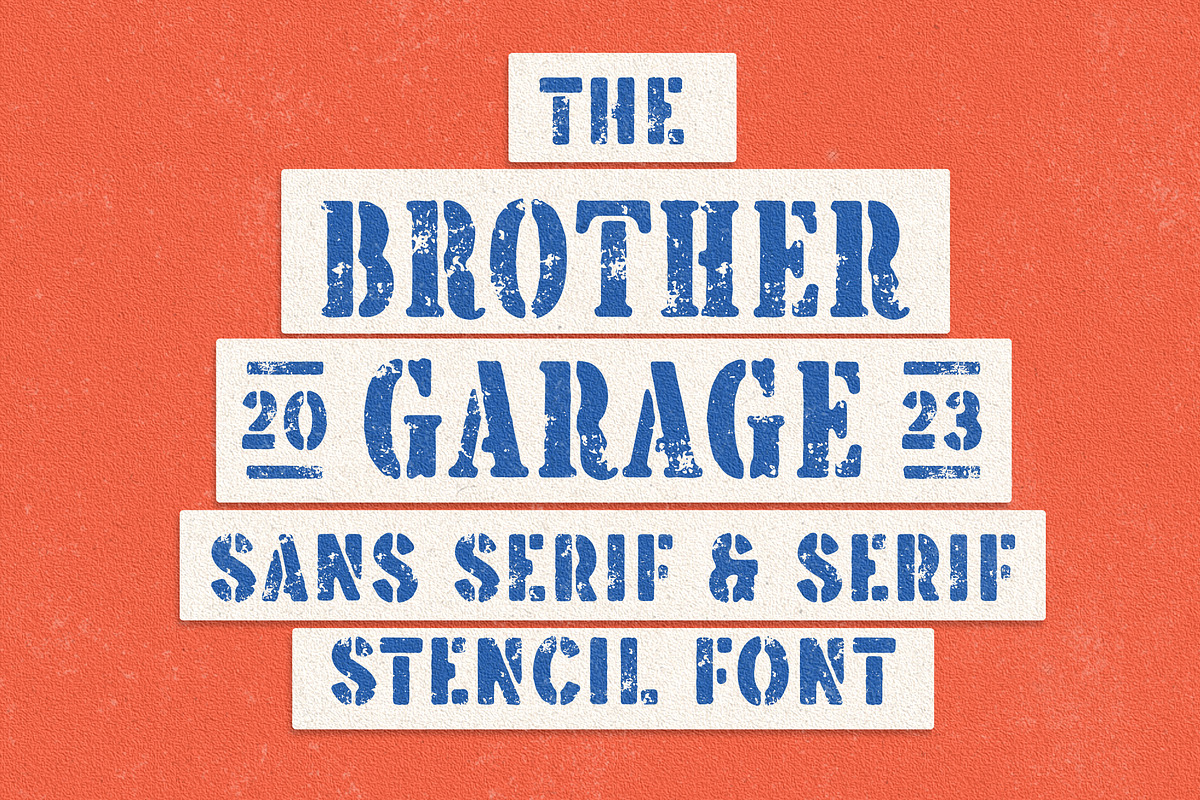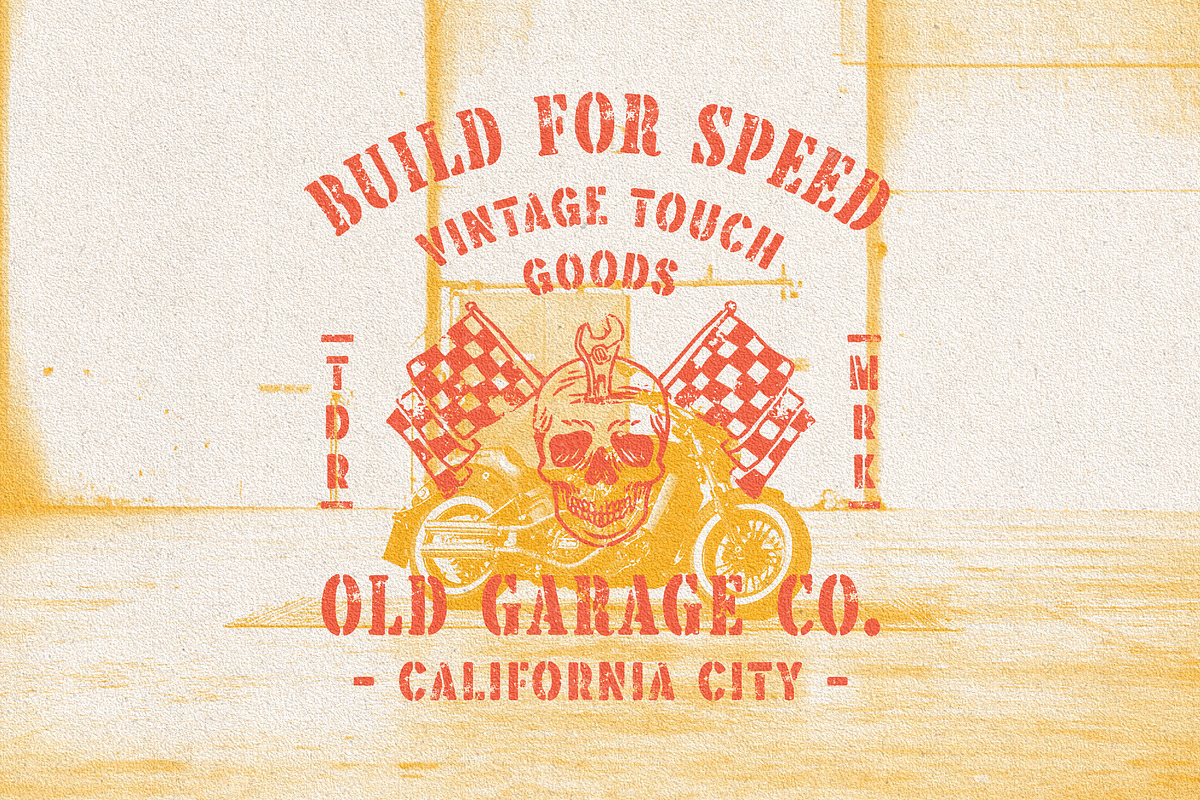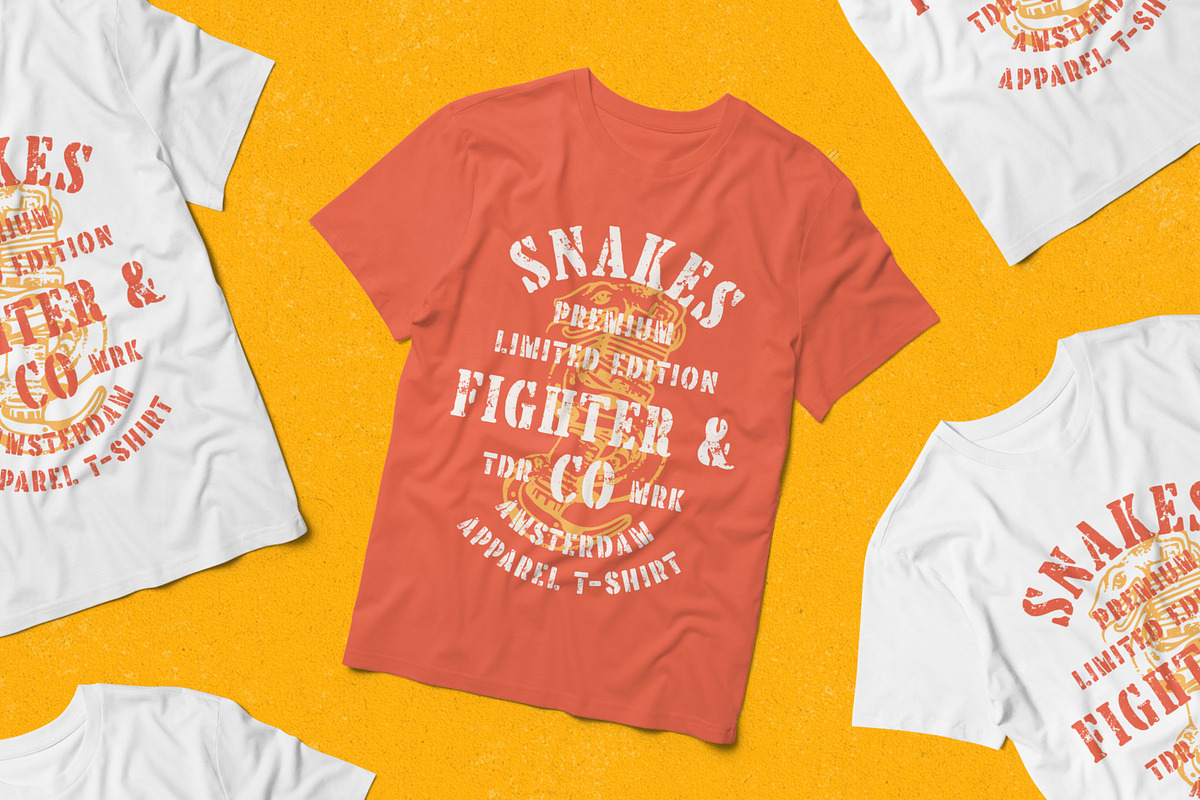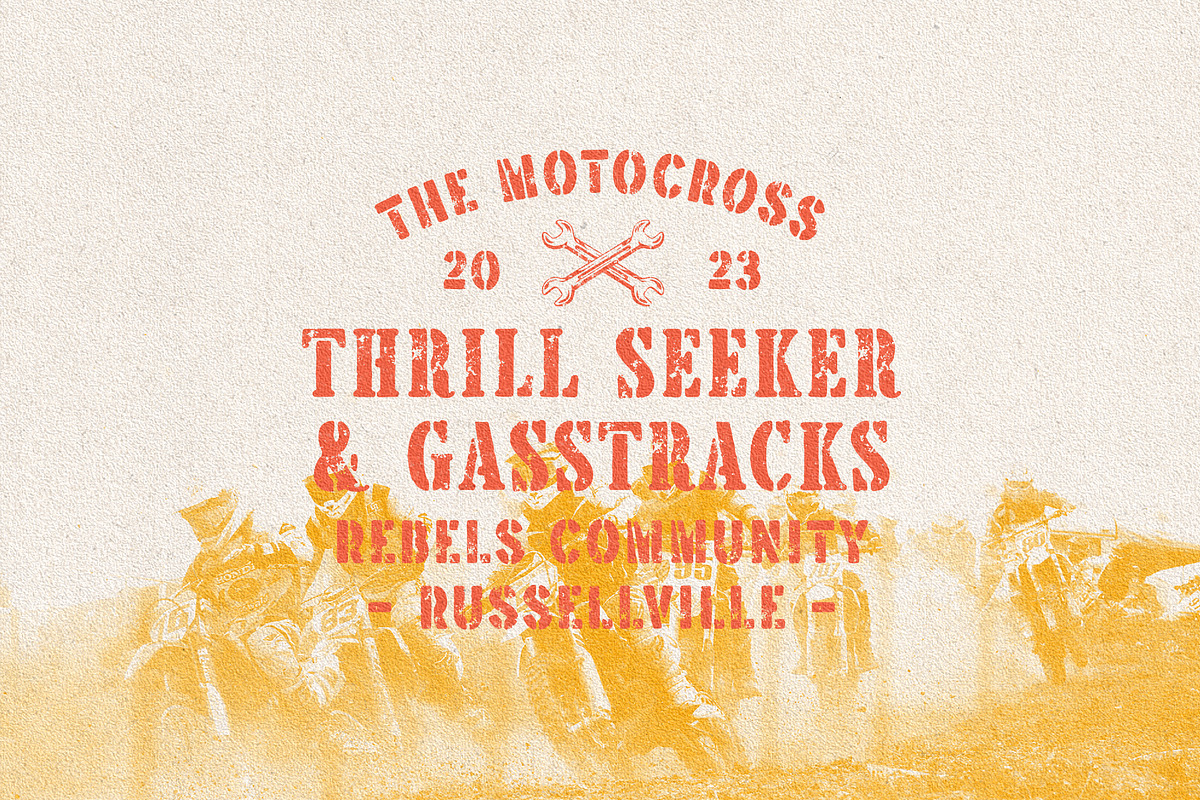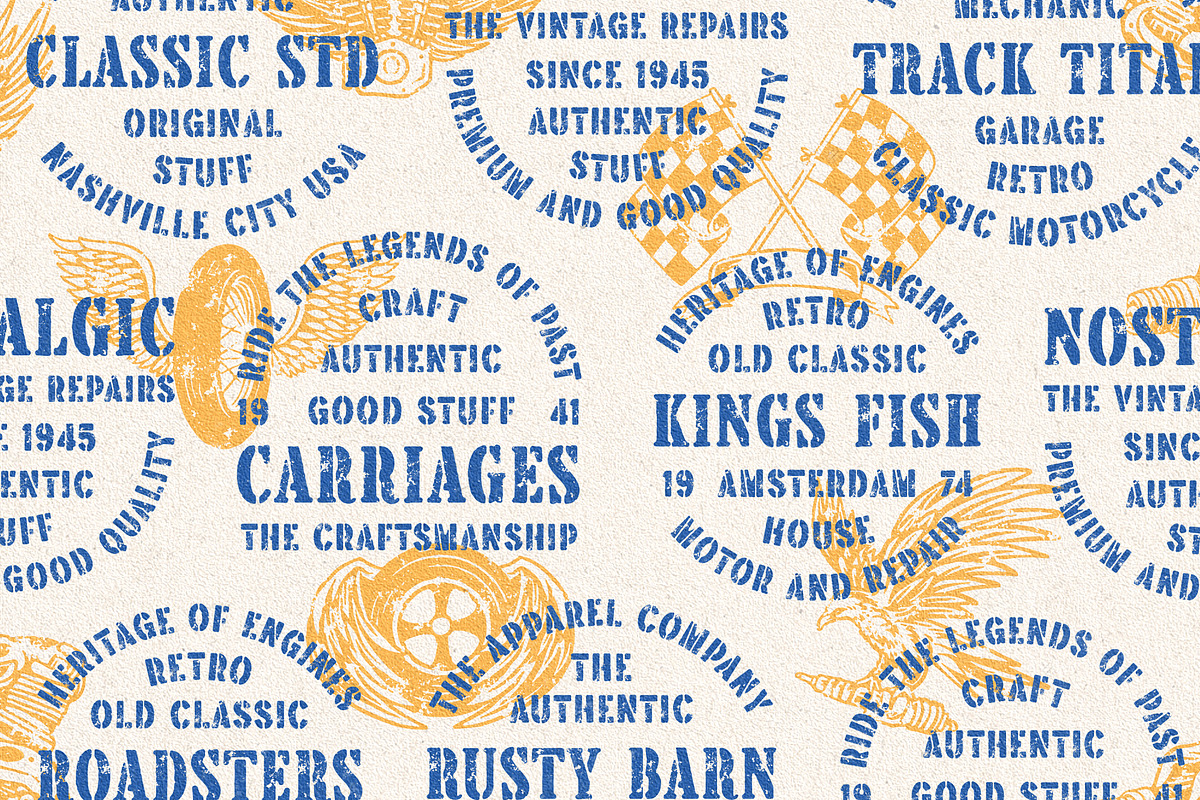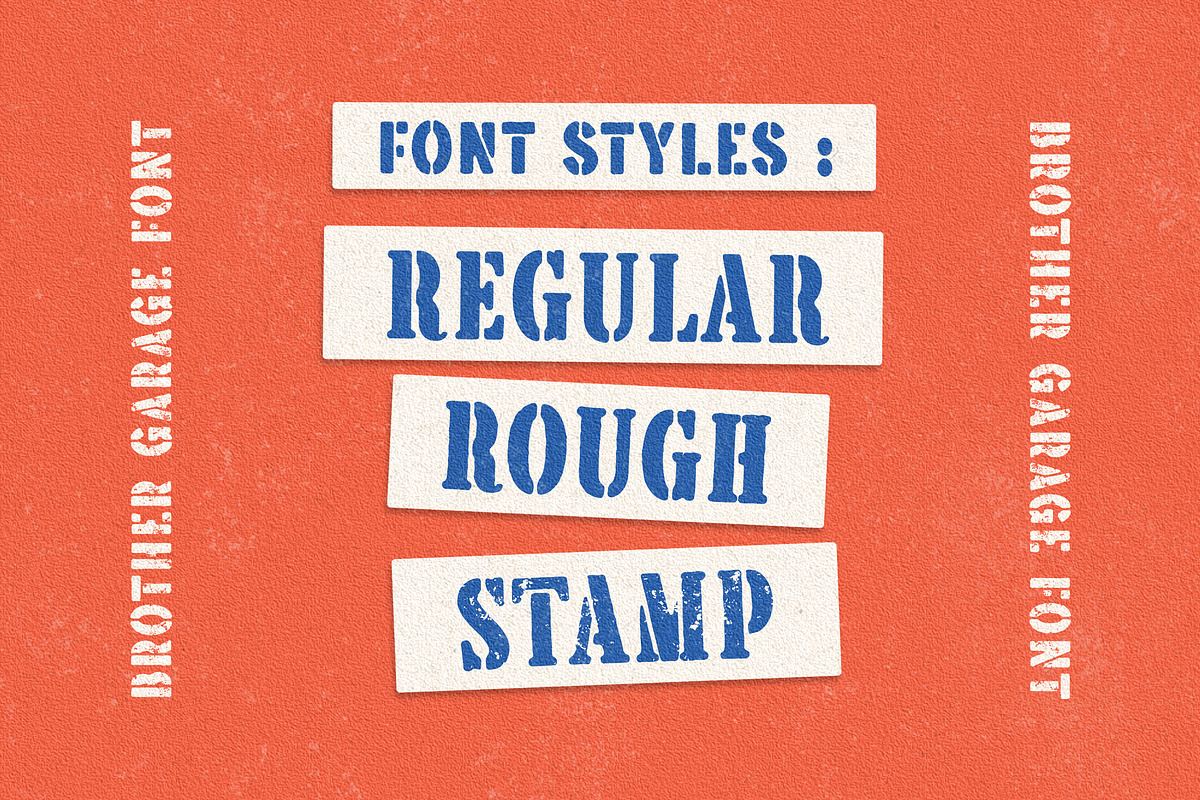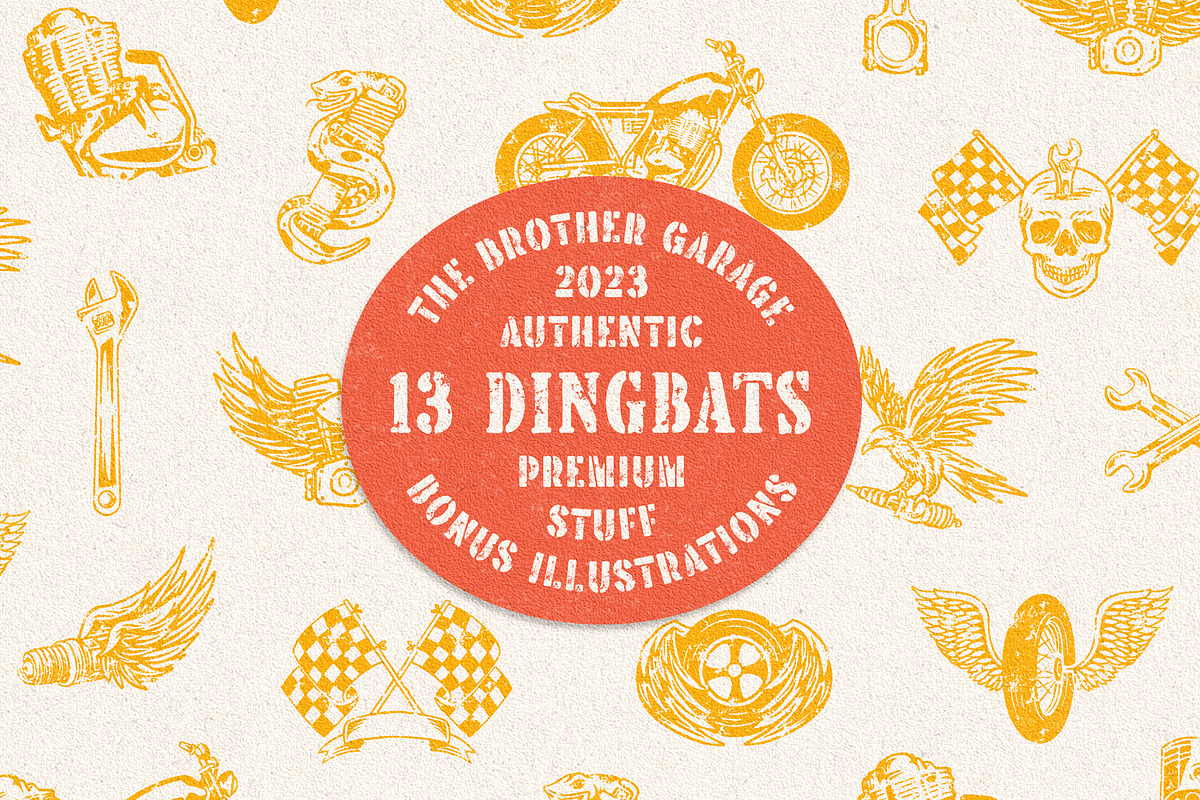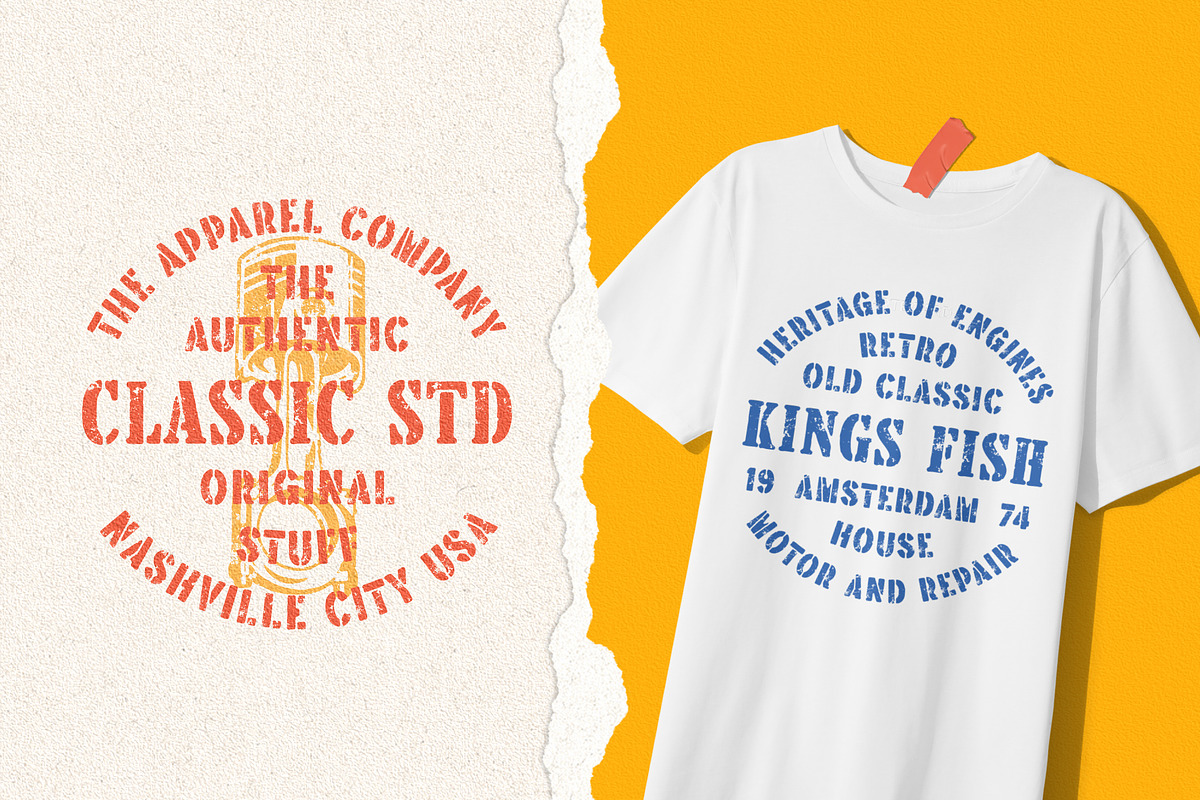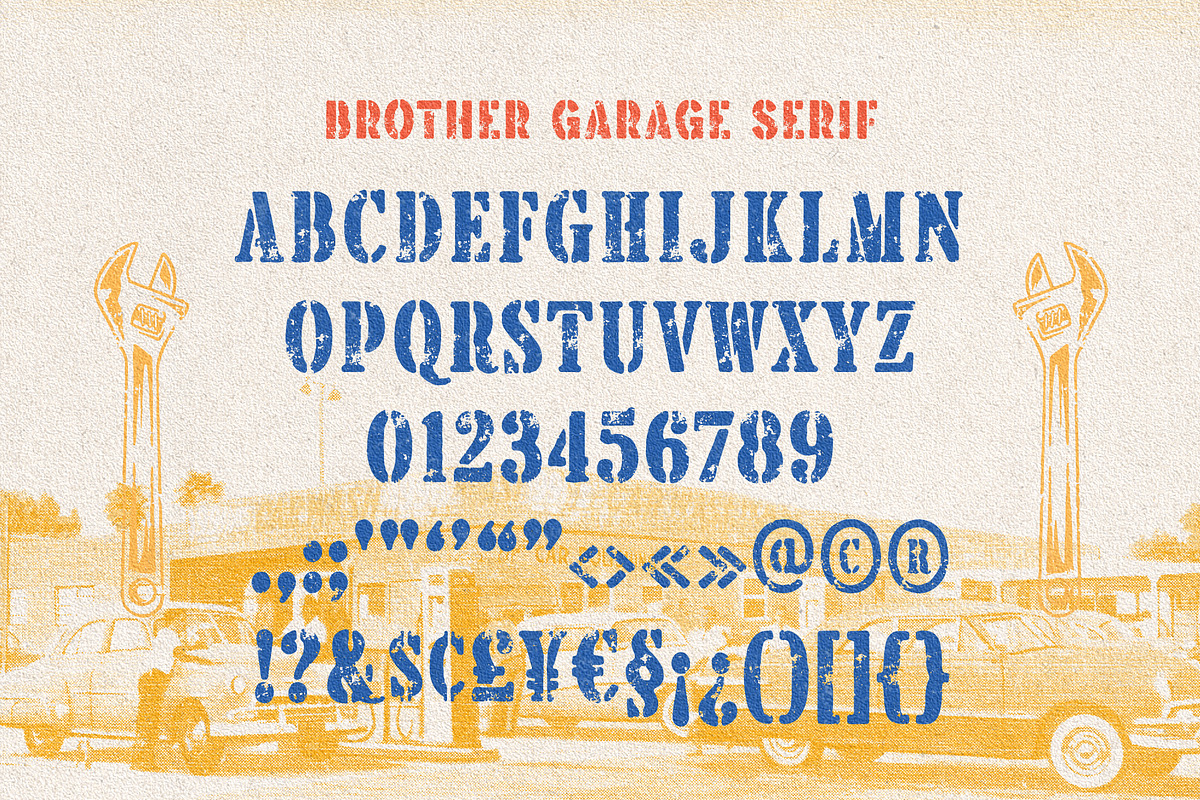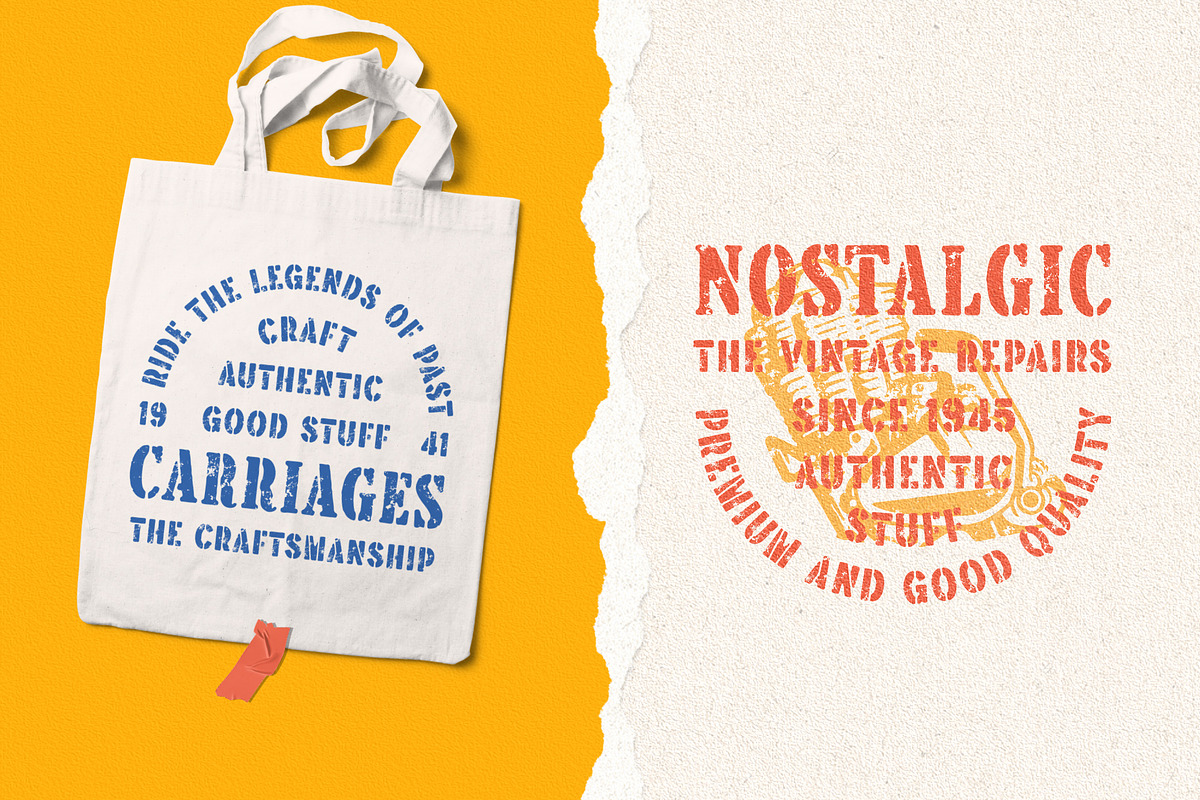
Brother Garage - Display Font
Introducing Brother Garage, the ultimate vintage motorcycle-inspired font collection designed to bring the spirit of the garage to your designs. This dynamic set combines the best of stencil serif and sans serif fonts. With three unique styles to choose from - regular, rough, and stamp - Brother Garage offers authenticity, allowing you to effortlessly bring your designs with the rustic and classic looks.
But that's not all! Alongside the Brother Garage fonts, you'll receive a fantastic bonus of 13 crafted illustrations. These illustrations perfectly combine with the font collection, capturing the essence of vintage motorcycle culture with stencil and stamp details visuals. Whether you're working on posters, logos, apparel, or any other creative project, Brother Garage provides the ideal typographic foundation to add a touch of nostalgia and power to your designs. Embrace the spirit of adventure, power, and craftsmanship with Brother Garage font collection and let your creativity roar.
Brother Garage font features :
- 3 style typefaces (regular, rough and stamp)
- All-caps, numeral, symbol and punctuation